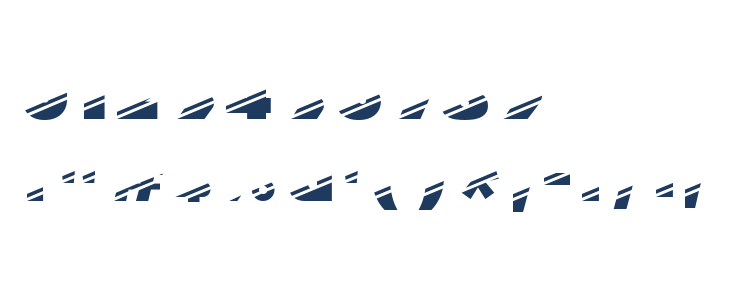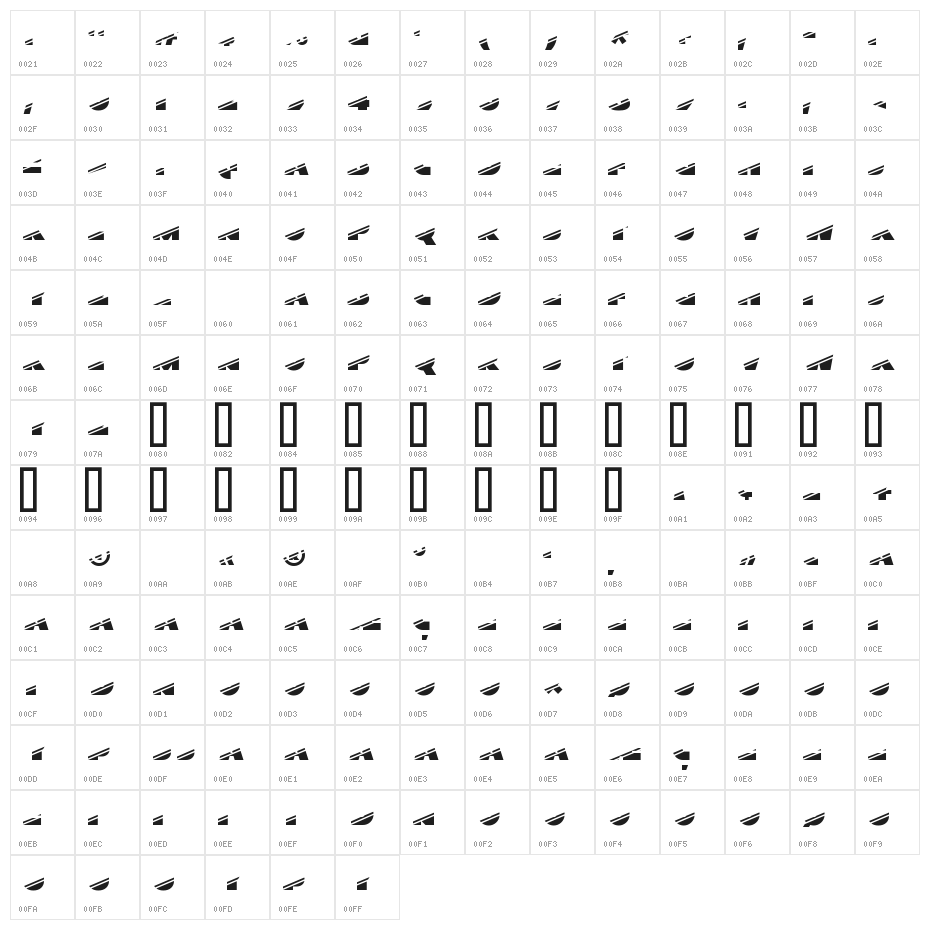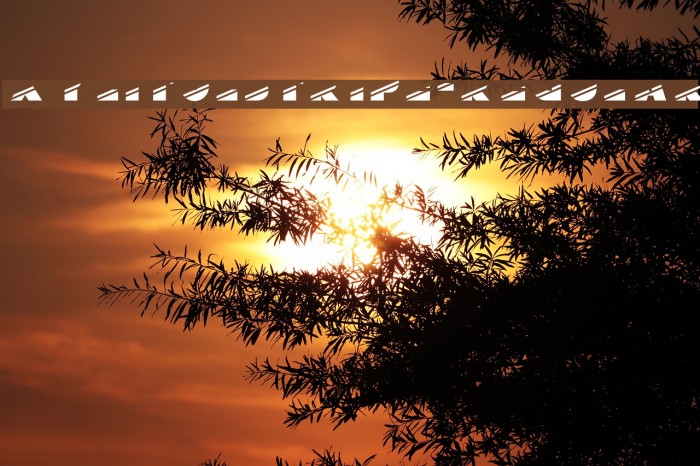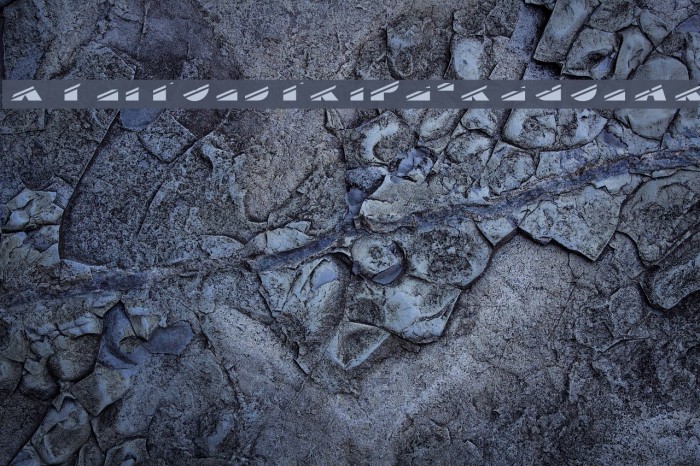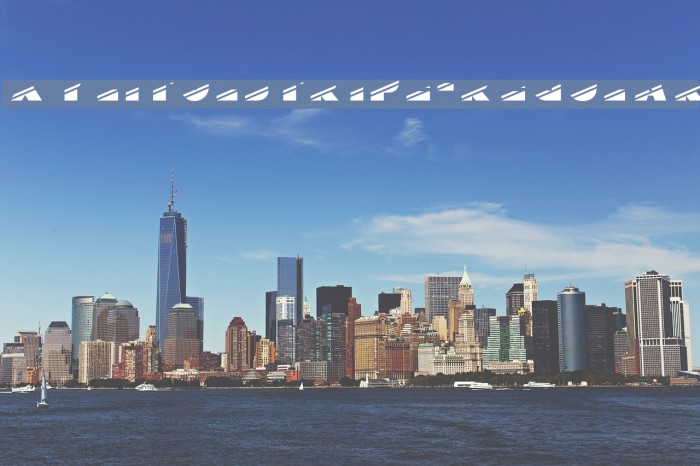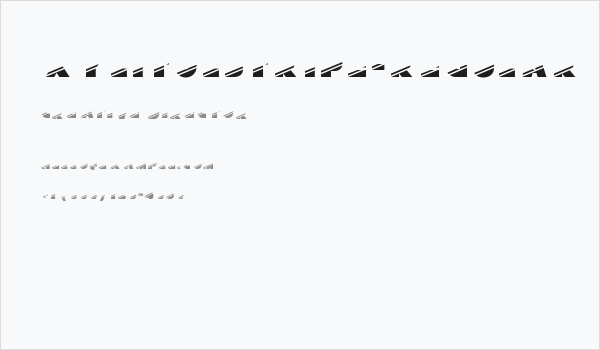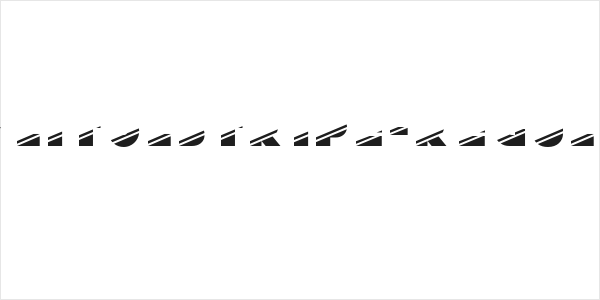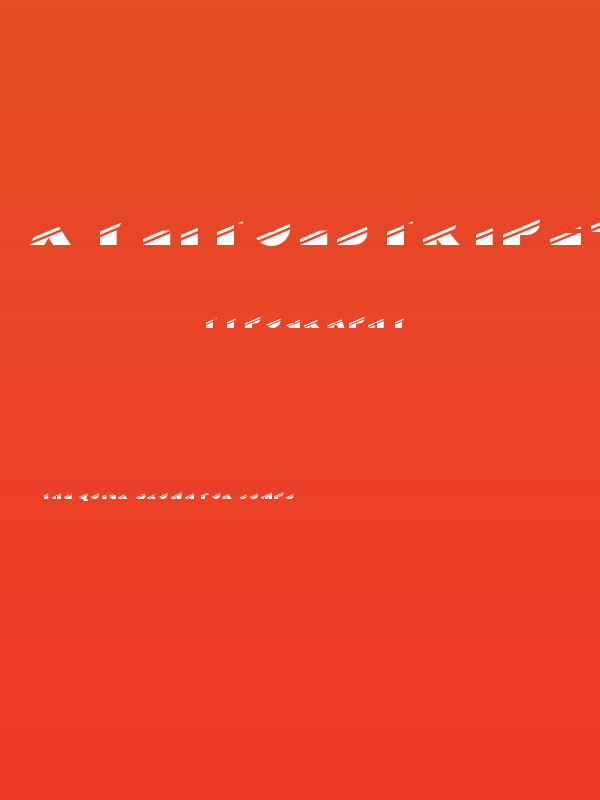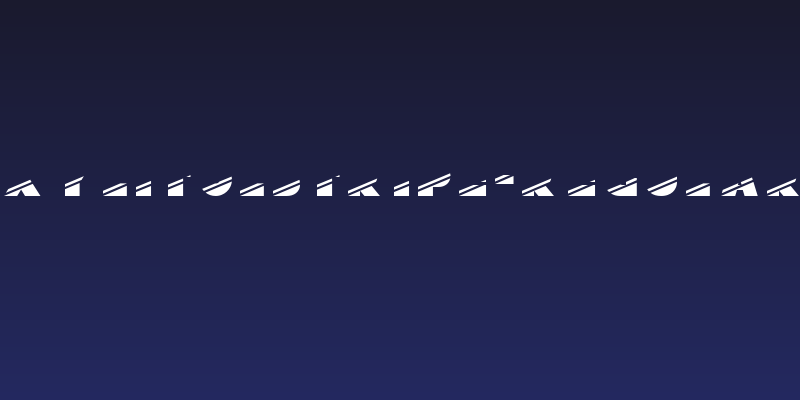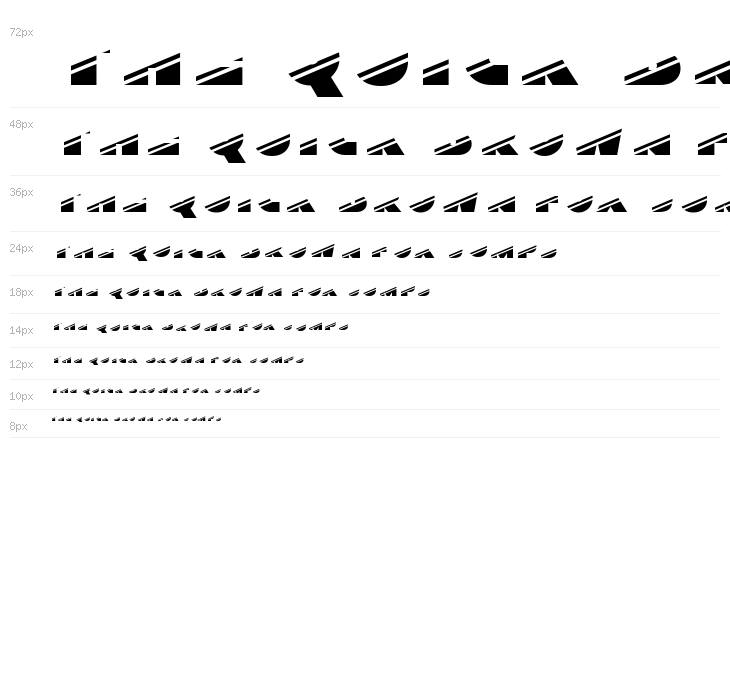
XylitolStripe-Regular Font
XylitolStripe-Regular Description
This font features a bold and dynamic design with a distinct striped pattern running through each character. The letters are angular and geometric, creating a sense of movement and energy. The uppercase and lowercase letters maintain a consistent style, with sharp edges and a modern aesthetic. The numbers and special characters follow the same design principles, ensuring uniformity across all glyphs. This font is eye-catching and ideal for projects that require a strong visual impact.